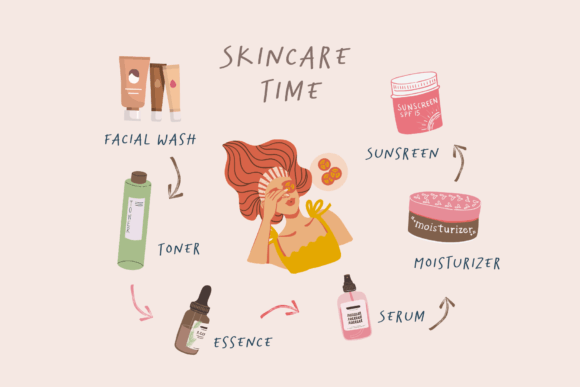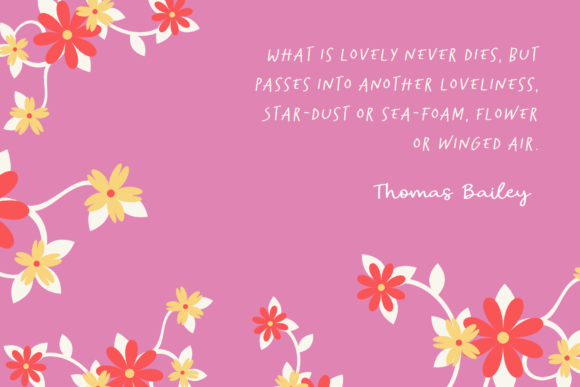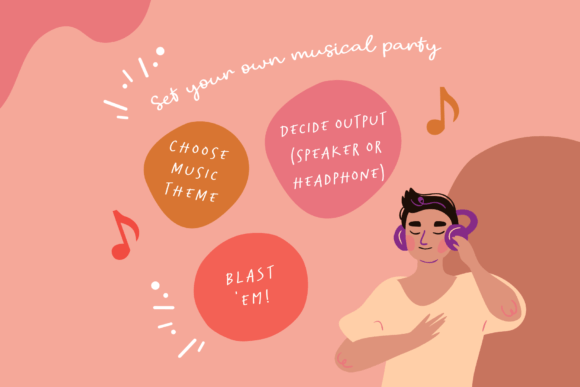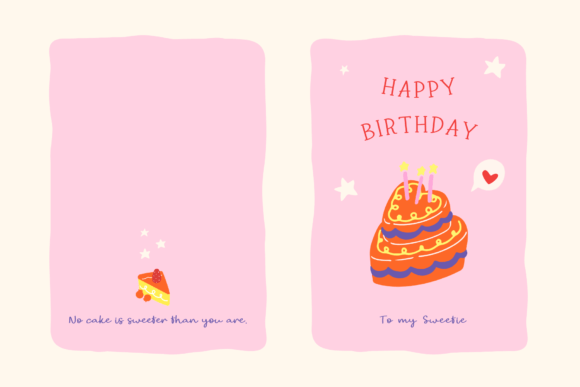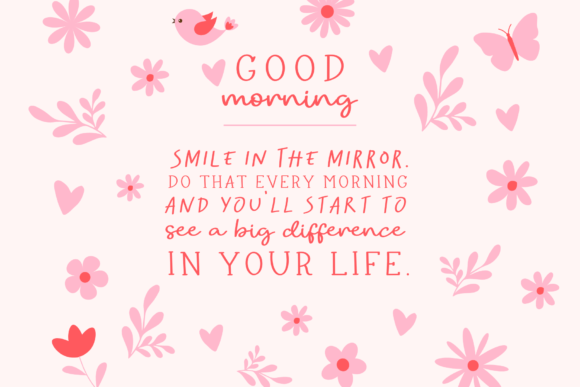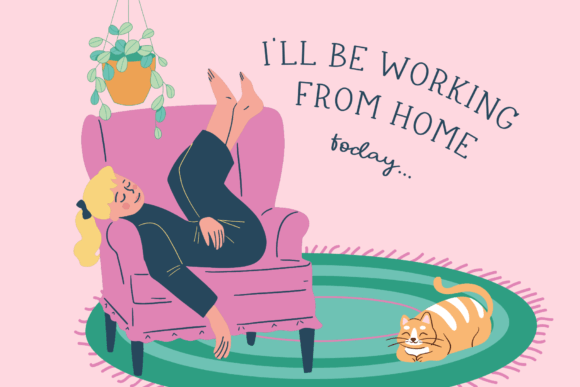
Gastropub Trio Font: A Delightful Hand-Lettered Font Combination
Are you looking for a font trio that can add a touch of charm to your creative projects? Look no further than the Gastropub Trio Font, a delightful and endearing hand-lettered font combination designed to bring a sense of warmth and personality to any design. In this article, we’ll explore the features and benefits of this perfect triple, and how it can be used to create a casual and inviting atmosphere in various applications.
What is Gastropub Trio Font?
Gastropub Trio Font is a hand-lettered font combination that consists of three unique fonts, each with its own distinct character and personality. The fonts are designed to work together seamlessly, creating a cohesive and visually appealing look that’s perfect for a wide range of creative projects. Whether you’re a designer, crafty DIY enthusiast, or simply someone who loves to create, this font trio is sure to delight.
Features of Gastropub Trio Font
So, what makes Gastropub Trio Font so special? Here are just a few of its key features:
- Hand-lettered charm: Each font in the trio is carefully hand-lettered, giving them a unique and personal touch that’s perfect for creating a sense of warmth and personality in your designs.
- Delightful and whimsical: The fonts are playful, fun, and full of character, making them ideal for creating a casual and inviting atmosphere in your designs.
- Versatile: The Gastropub Trio Font is perfect for a wide range of creative projects, from greeting cards and illustrations to quotes, branding, book covers, children’s books, packaging, and more.
- Easy to use: The fonts are easy to read and work with, making them perfect for designers and crafters of all skill levels.
Applications of Gastropub Trio Font
So, what can you use Gastropub Trio Font for? The possibilities are endless! Here are just a few ideas to get you started:
- Greeting cards: Add a personal touch to your greeting cards with this charming font trio.
- Illustrations: Use the Gastropub Trio Font to add a touch of whimsy and personality to your illustrations.
- Quotes: Create inspiring and eye-catching quotes with this delightful font combination.
- Branding: Use the Gastropub Trio Font to create a unique and memorable brand identity for your business or product.
- Book covers: Add a touch of charm to your book covers with this perfect triple.
- Children’s books: The Gastropub Trio Font is perfect for creating engaging and interactive children’s books.
- Packaging: Use the font trio to add a personal touch to your product packaging.
Benefits of Using Gastropub Trio Font
So, why should you choose Gastropub Trio Font for your creative projects? Here are just a few benefits of using this delightful font combination:
- Adds a personal touch: The Gastropub Trio Font adds a unique and personal touch to your designs, setting them apart from the crowd.
- Creates a casual and inviting atmosphere: The font trio is perfect for creating a warm and welcoming atmosphere in your designs.
- Versatile and flexible: The Gastropub Trio Font can be used in a wide range of creative projects, from digital designs to print materials.
- Easy to read and work with: The fonts are easy to read and work with, making them perfect for designers and crafters of all skill levels.
| Font Name | Gastropub Trio Font |
| Author | Cotton White Studio |
In conclusion, Gastropub Trio Font is a delightful and endearing hand-lettered font combination that’s perfect for adding a touch of charm to any creative project. With its hand-lettered charm, delightful and whimsical design, versatility, and ease of use, this perfect triple is ideal for creating a casual and inviting atmosphere in various applications. Whether you’re a designer, crafty DIY enthusiast, or simply someone who loves to create, Gastropub Trio Font is sure to delight. So why wait? Download Gastropub Trio Font today and let your imagination run wild!